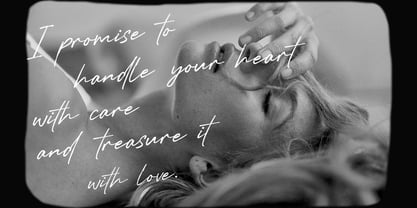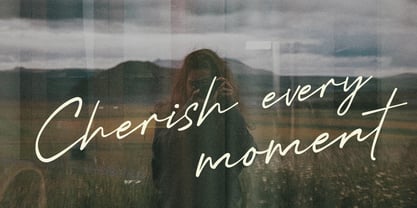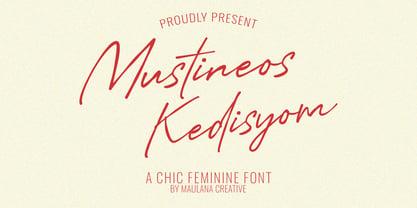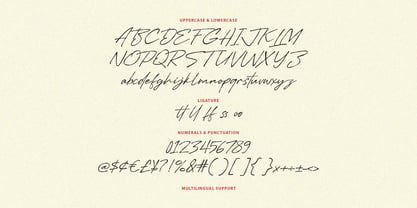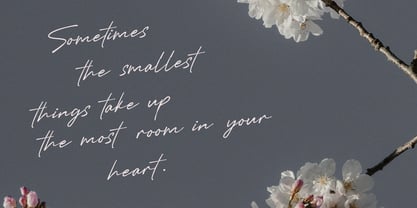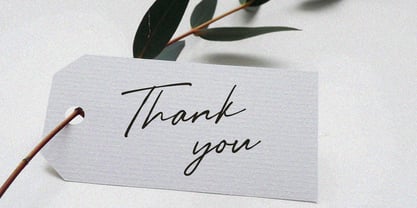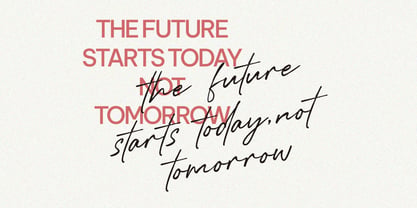
MC Mustineos Kedisyom
by Maulana Creative
The MC Mustineos Kedisyom Font Family was designed by Gilang Maulana and published by Maulana Creative. MC Mustineos Kedisyom contains 1 styles. More about this family
Introducing Mustineos Kedisyom a stunning, chic feminine script font designed to add an elegant and sophisticated touch to any project. With its flowing, expressive strokes and slightly slanted baseline, Mustineos Kedisyom perfectly captures the essence of modern calligraphy. This font exudes style, luxury, and a beautiful handwriting feel, making it ideal for high end branding and creative endeavors. Perfect For: - Branding & Logos: Create luxury brand identities, stylish logos, and sophisticated. - Weddings & Events: Design beautiful invitations, RSVPs, and save-the-dates with a touch. - Social Media: Elevate your Instagram quotes, Pinterest graphics, and blog headers. - Fashion & Editorial: Use it for magazines, design, and elegant product displays. - Signature & Watermarks: Give your photography and artwork a distinct, personalized sign off. Key Features: - Complete Character Set: Uppercase, lowercase, numerals, and punctuation. - Beautiful Ligatures: Includes special ligatures to make your text flow naturally and look genuinely handwritten. - Multilingual Support: Reach a global audience with extensive language support. Let Mustineos Kedisyom be the voice of your next project and effortlessly convey elegance, authenticity, and charm.
Designers: Gilang Maulana
Foundry: Maulana Creative